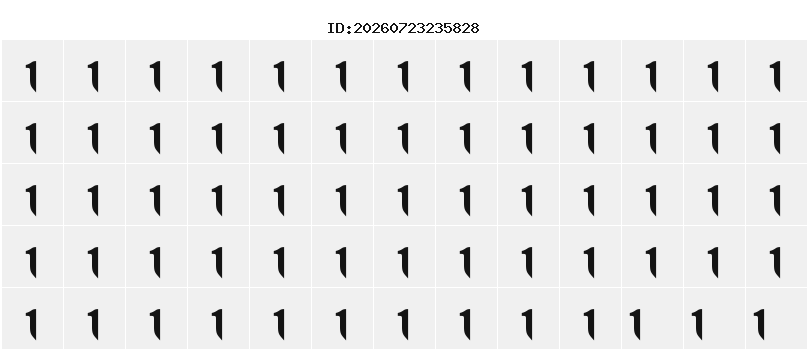
Exorsista -Jed@ Preview
About Exorsista -Jed@.ttf
Exorsista -Jed@.ttf is a modern, elegant sans-serif font designed for ultimate readability and visual harmony. Perfect for branding, headlines, web design, and print materials.